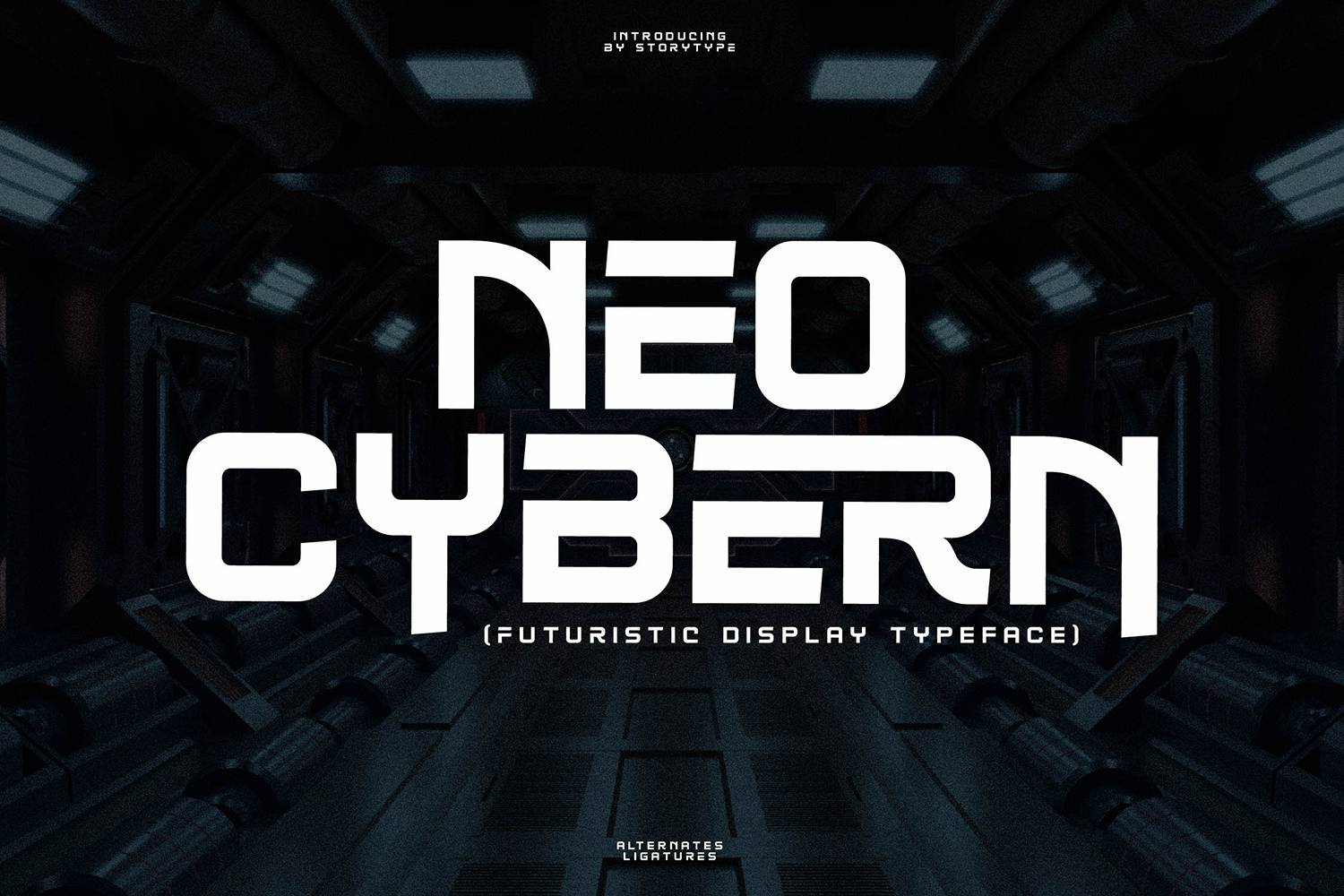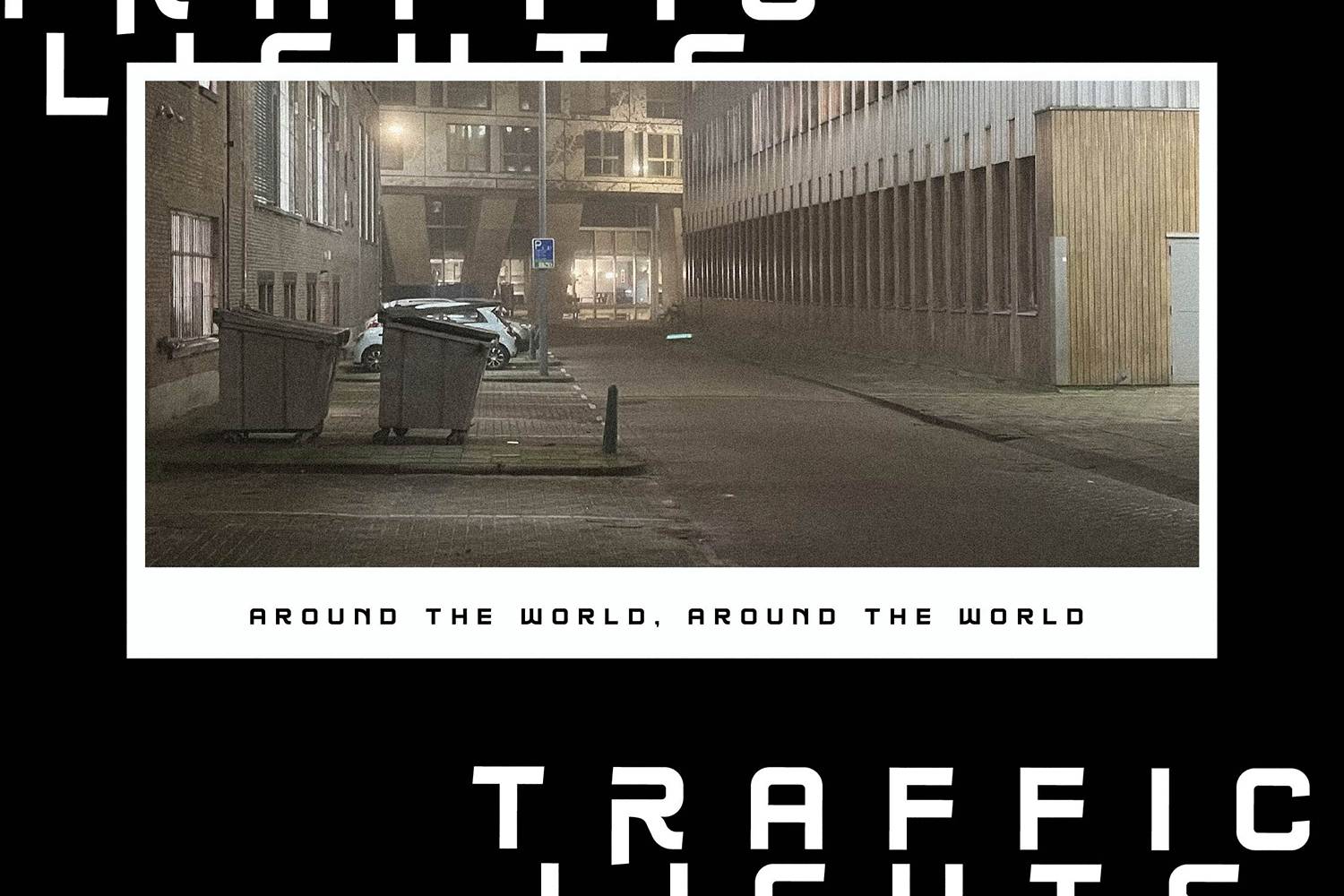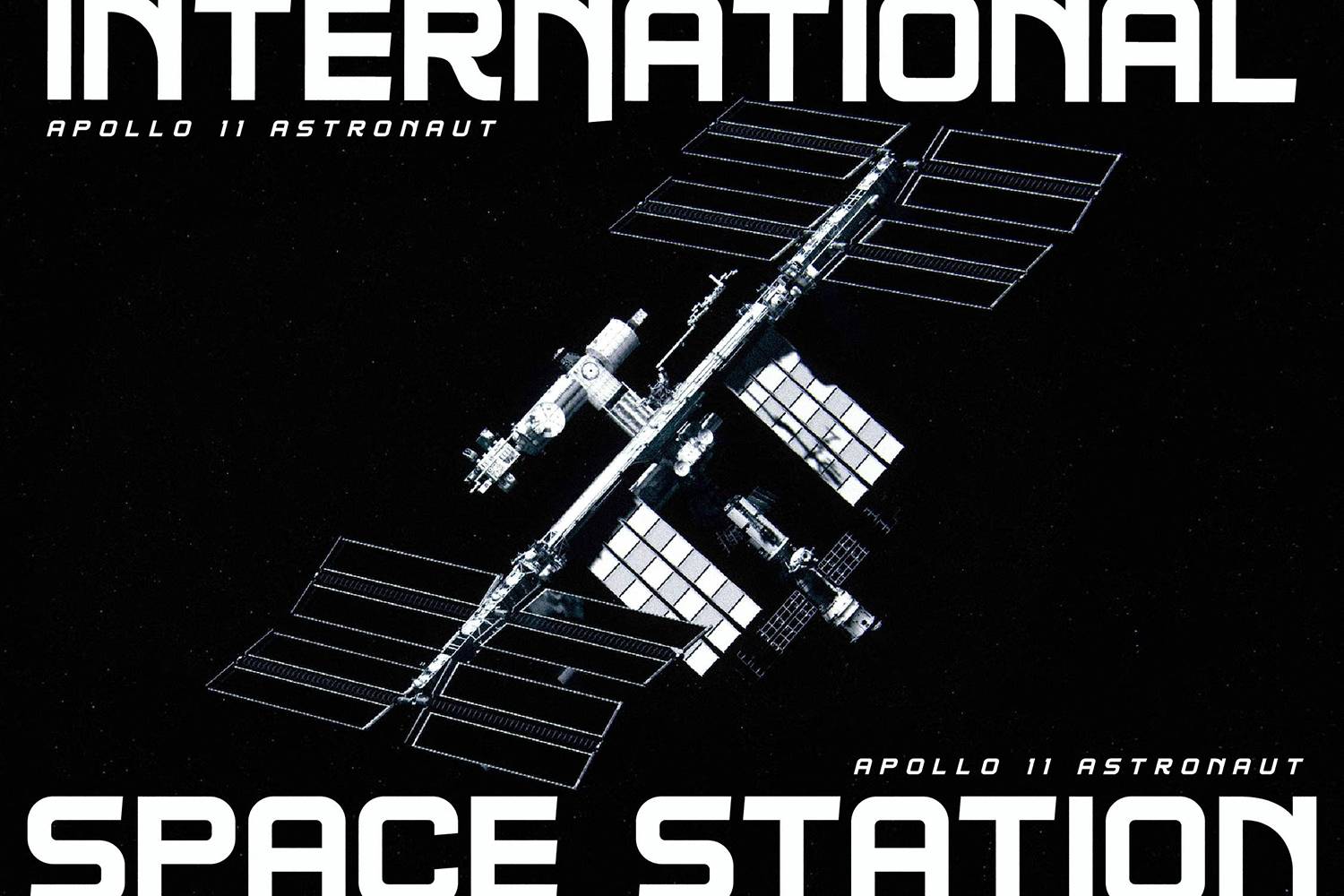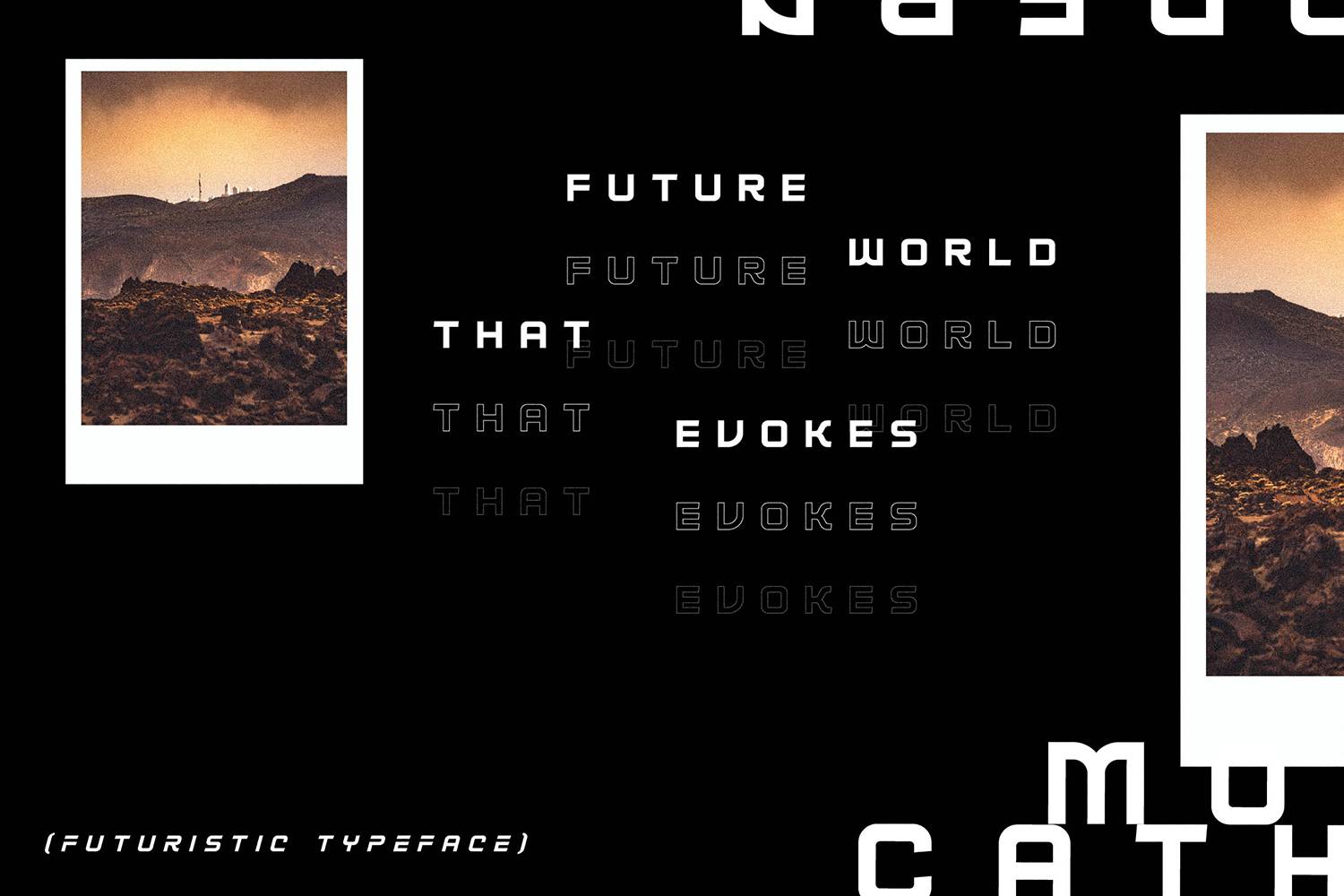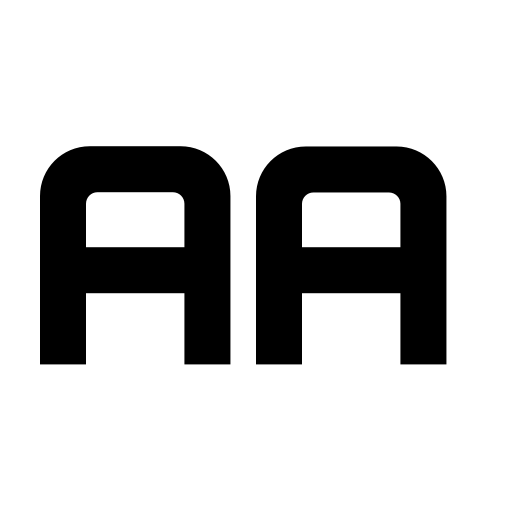
Neo Cybern is a bold, geometric sans serif font with a futuristic, tech-inspired style. Its strong, wide letterforms and sharp angles create a high-tech, modern vibe ideal for headlines, logos, and branding in the technology, gaming, and science fiction industries. This font excels at making a powerful visual statement where an edgy, digital aesthetic is desired.
Neo Cybern Font
About Neo Cybern Font